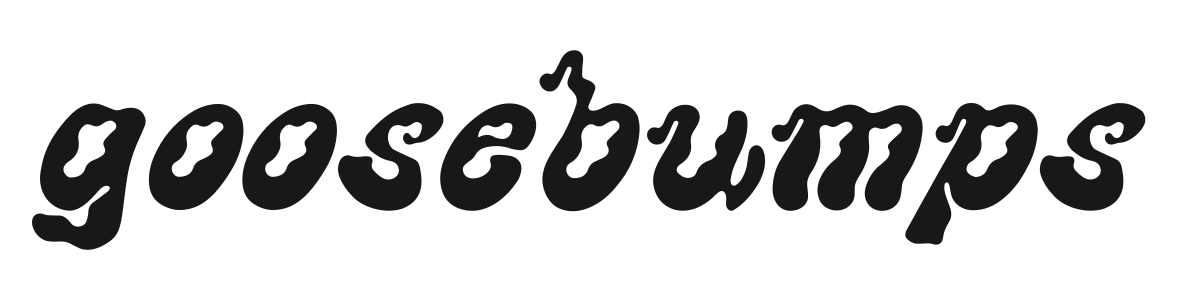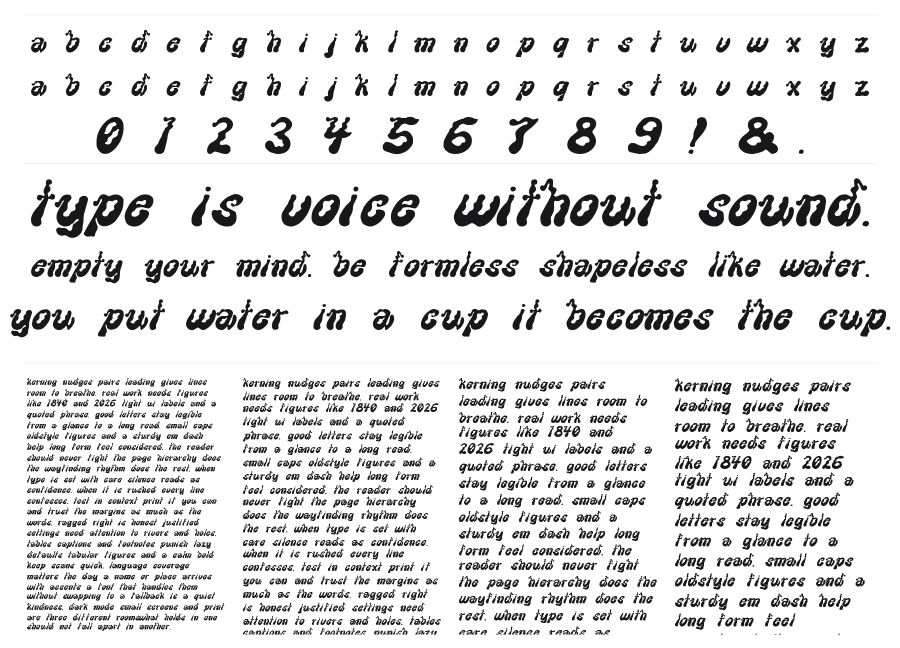
Goosebumps
by Natalie Baron
Goosebumps is a bold, slanted display face with warped edges, uneven bowls, and thick-thin strokes that give every character a pleasantly unsettling wobble. Designed by Natalie Baron in 2020, it draws from retro horror aesthetics without committing fully to the macabre. The result is something that reads as fun and spooky in equal measure.